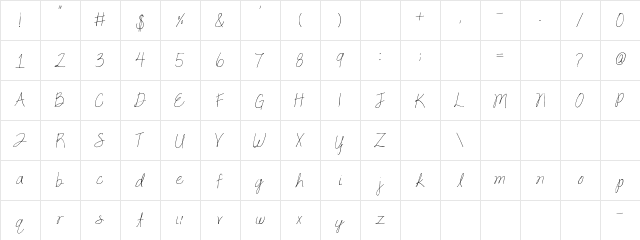
SBC Quick Chick Font Preview
SBC Quick Chick SBC Quick Chick
Design Context for SBC Quick Chick Typeface
SBC Quick Chick is a composed and adaptable typeface that performs quietly and consistently across a wide range of design contexts.